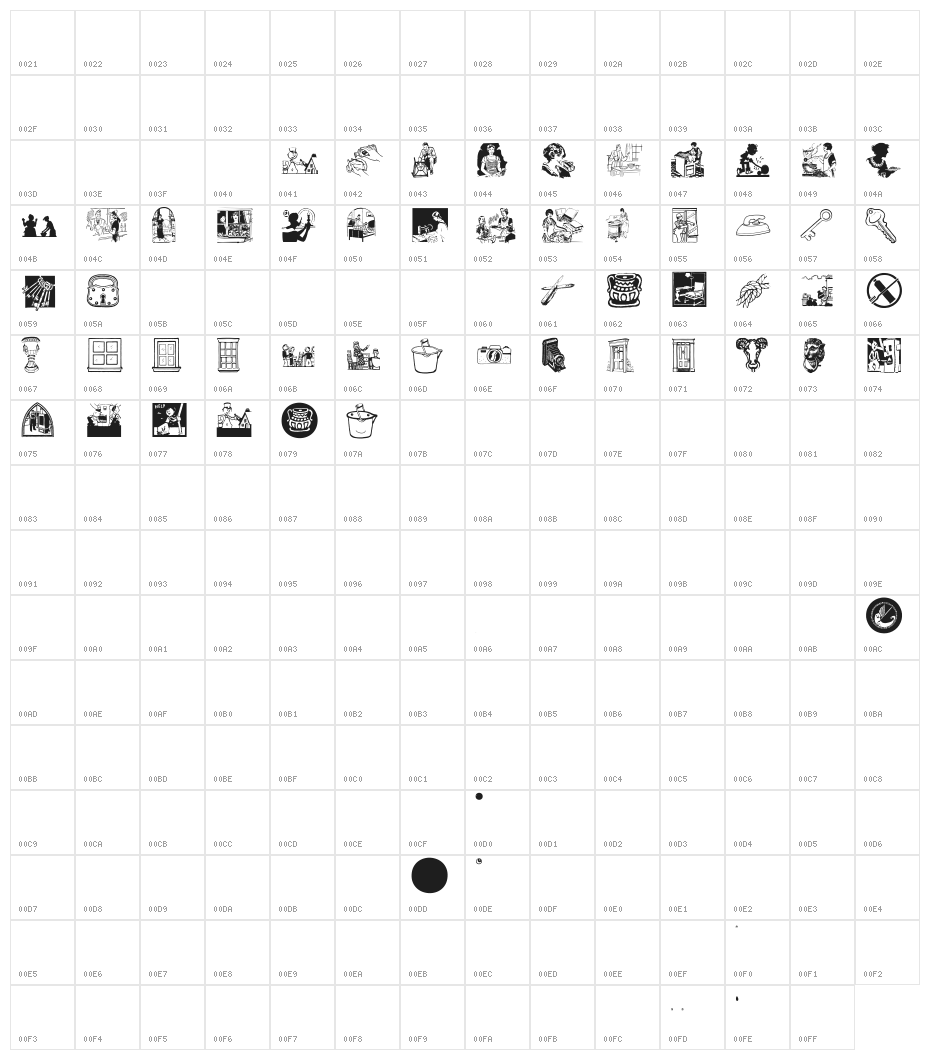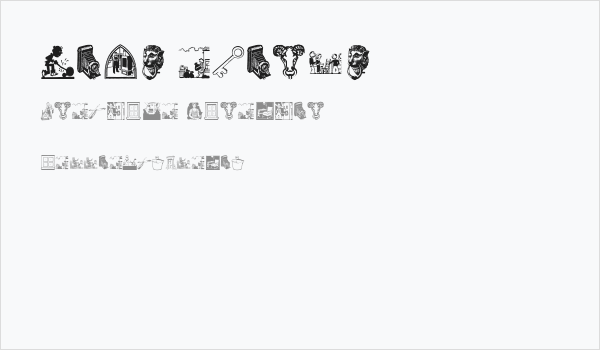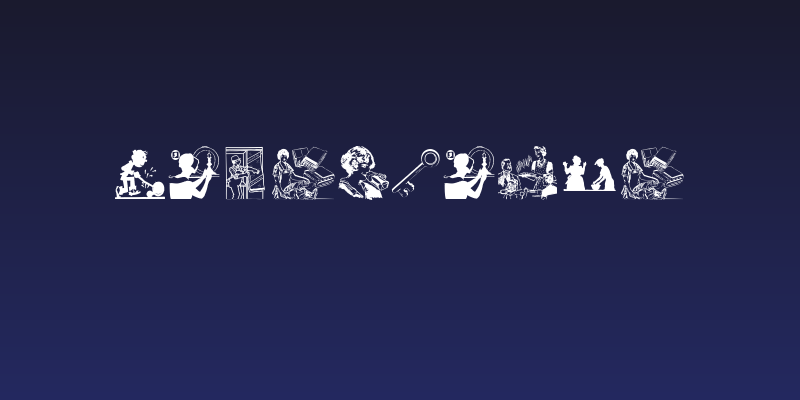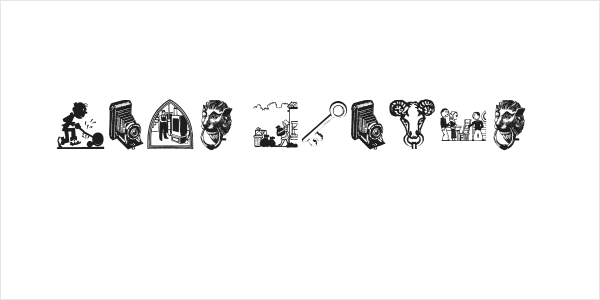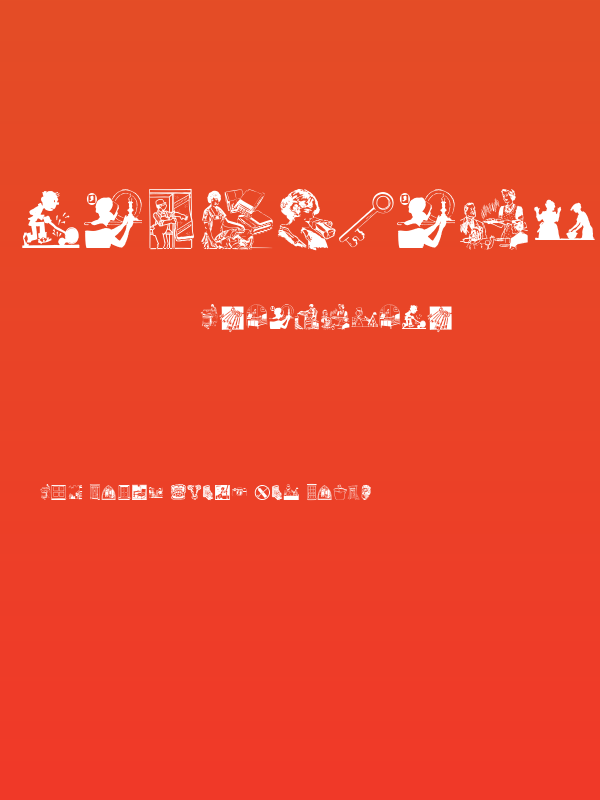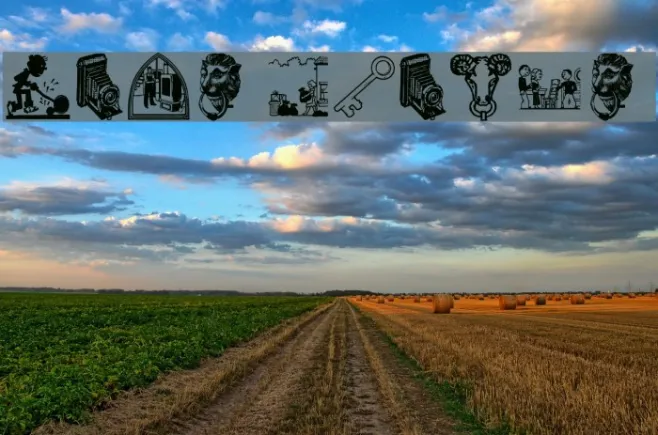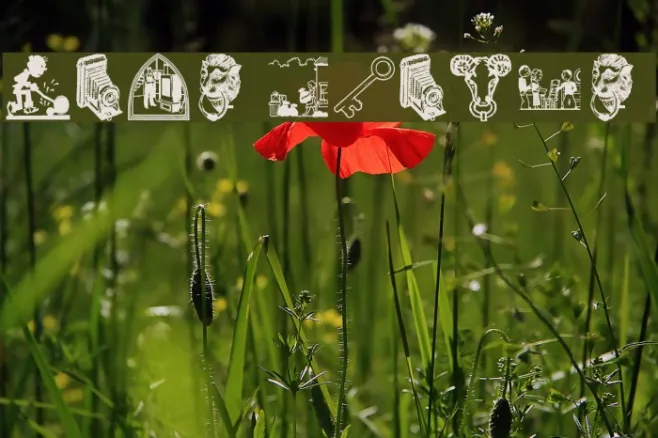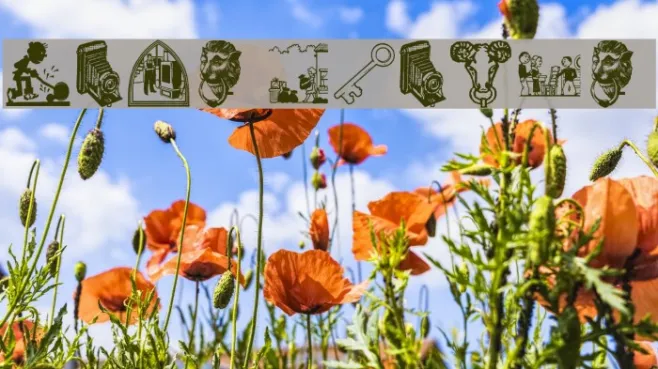
HouseWorks Font
HouseWorks Description
A decorative dingbat font featuring detailed black-and-white illustrations related to household activities, chores, objects, and scenes, each glyph representing a unique pictogram rather than a traditional letterform.
| Overall Style | Decorative, Illustrative, Thematic |
| Use Case | Icons, Visual accents, Themed graphics |
| Proposed Projects | Home organization guides, educational materials, infographics, themed event invitations, scrapbooking, visual schedules. |